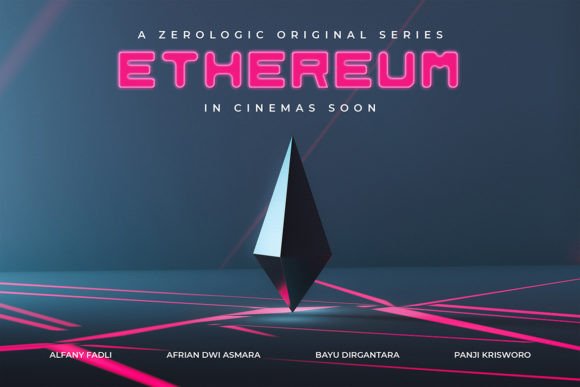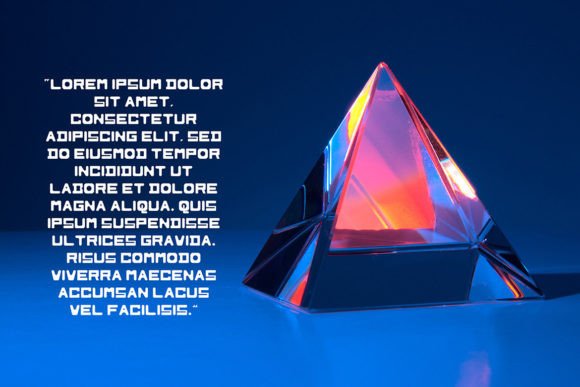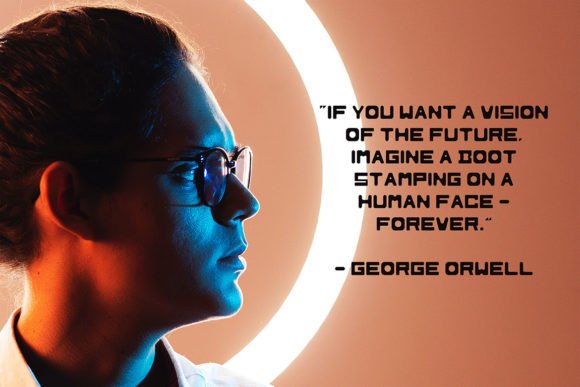
Introduction to Marlin Savage Font
Marlin Savage is a modern font that we designed with original touch for your needs.
This cool font is complete with Uppercase, Lowercase, and Numeric & symbols This very strong and sharp font is perfect for titles, typography, posters, magazines, brochures, packaging, Websites, and much more for your design needs, making your designs cooler.
Why Choose Marlin Savage Font?
Marlin Savage Font offers exceptional quality and versatility, making it a valuable addition to your design toolkit. Whether you’re creating for personal projects or commercial use, Marlin Savage Font delivers professional results.